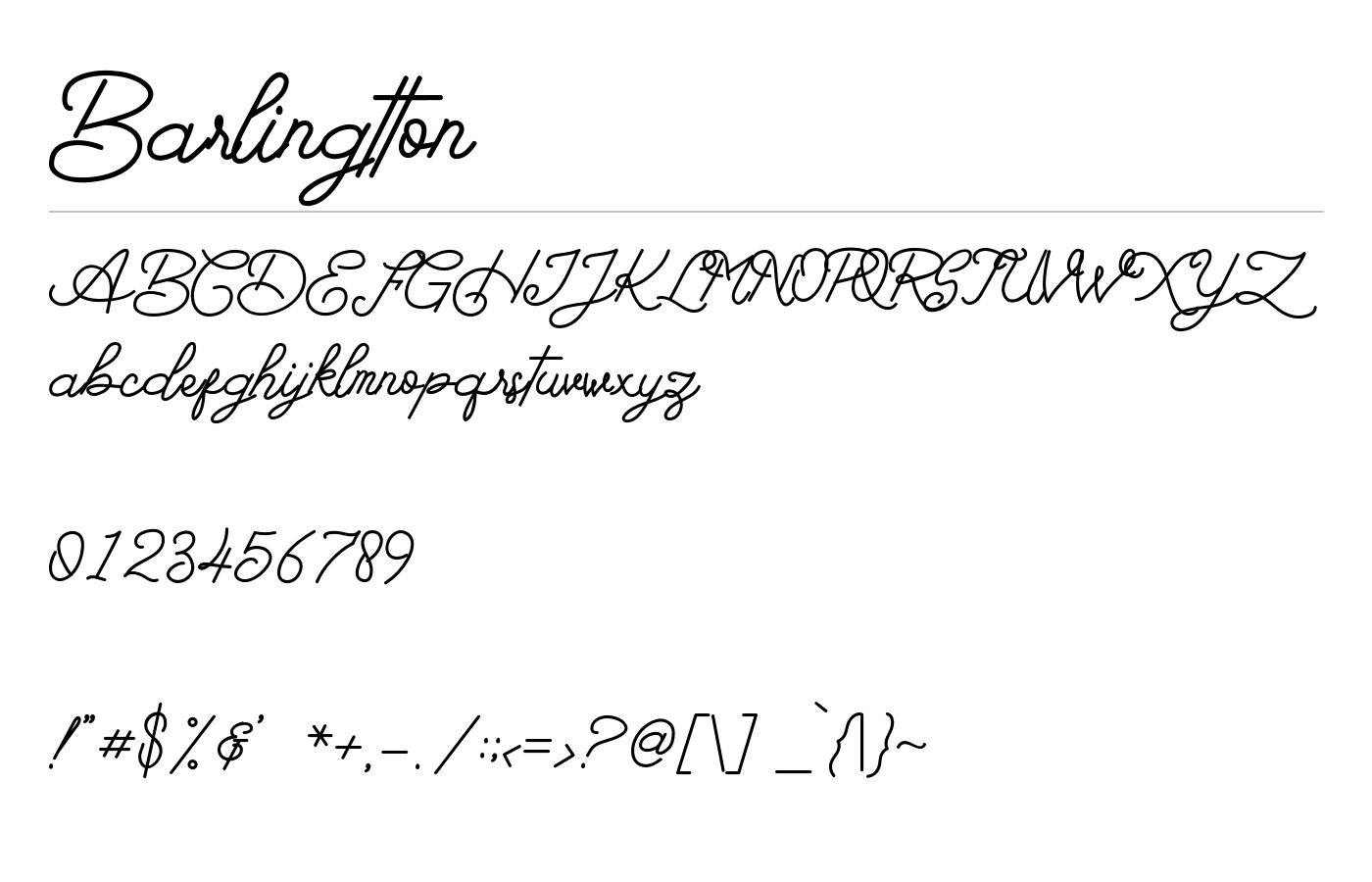
Barlingtton is an elegant, handwritten script font characterized by its smooth, flowing lines and delicate, cursive letterforms. It features a light weight with medium contrast and a natural, connected stroke style that exudes sophistication and charm. Ideal for branding, invitations, and stylish headlines, this font brings a refined, personal touch to projects that seek a graceful yet approachable aesthetic.
Barlingtton Font
About Barlingtton Font
| Font family | Barlingtton Font |
| Designer | Krisna Teja |